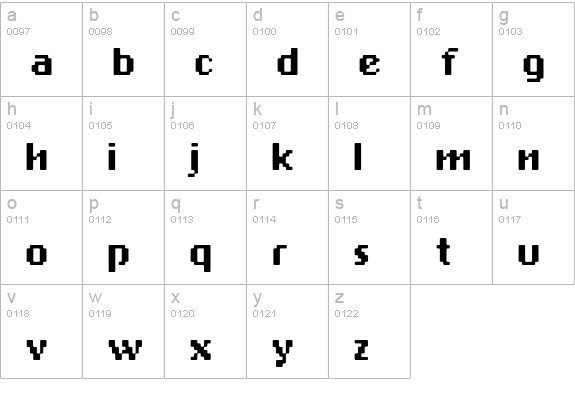
PFBitmap Two Font Details
PFBitmap Two font is a modern and stylish typeface that is perfect for adding a unique touch to your designs. This versatile font features bold, sleek letterforms that exude confidence and sophistication. With its clean lines and sharp edges, PFBitmap Two font is ideal for a wide range of design projects, from logos and branding to posters and social media graphics. Best of all, PFBitmap Two font is available for free download at FontsMarket.com. Whether you're a professional designer looking to add a fresh new font to your collection or a hobbyist looking to spice up your personal projects, PFBitmap Two font is the perfect choice. Download it today and unleash your creativity with this stunning typeface.